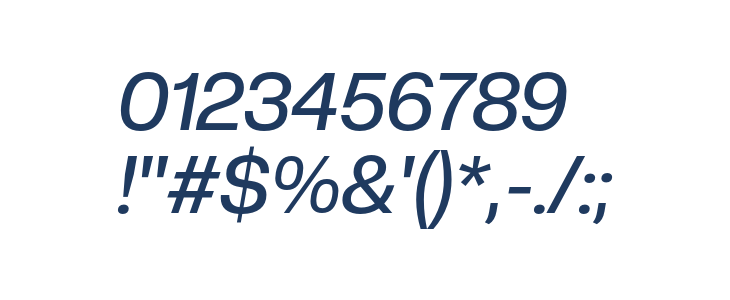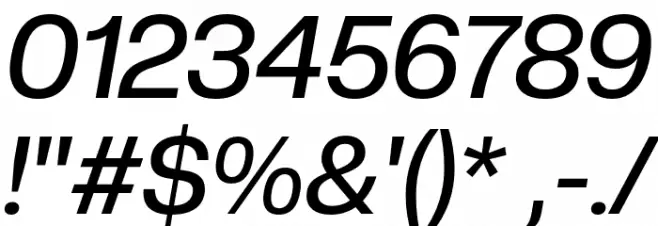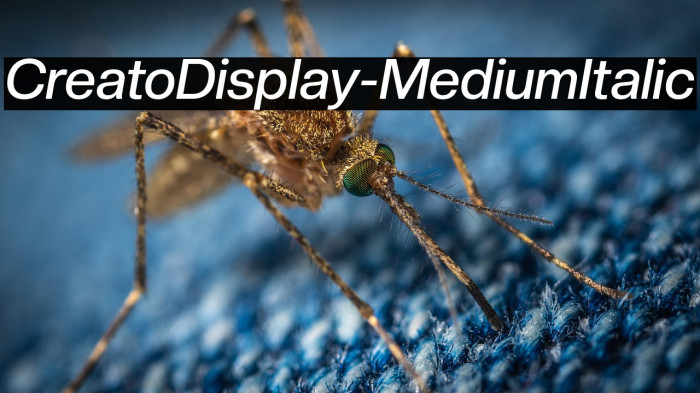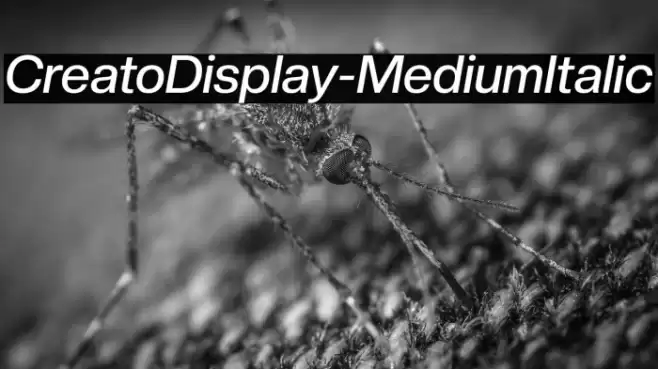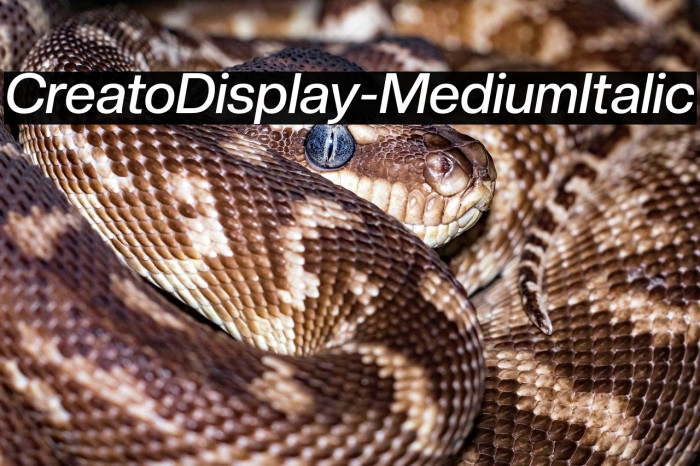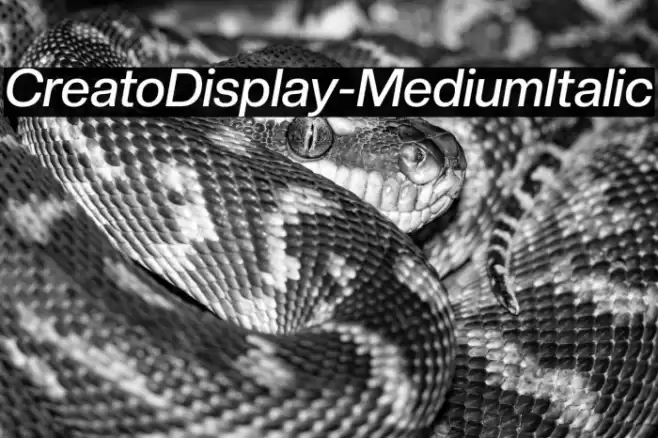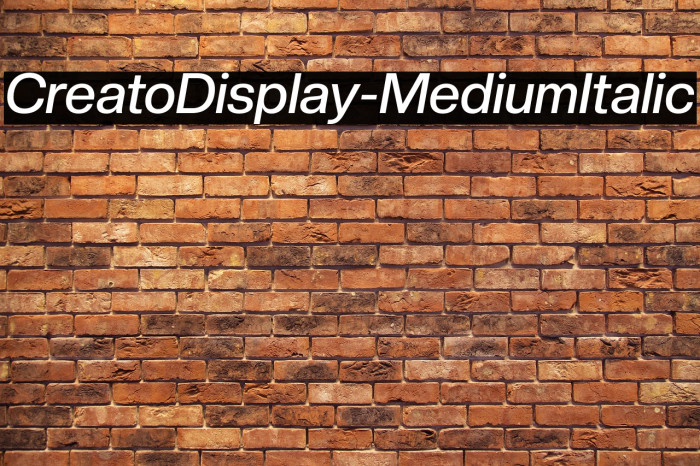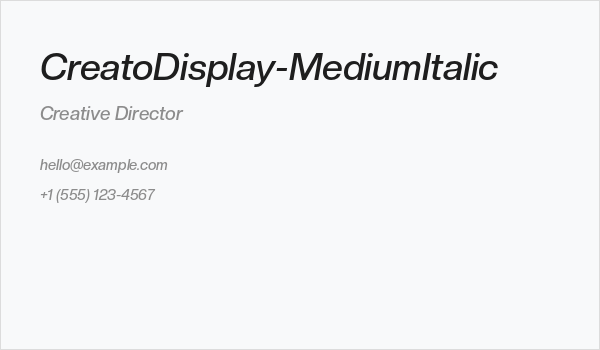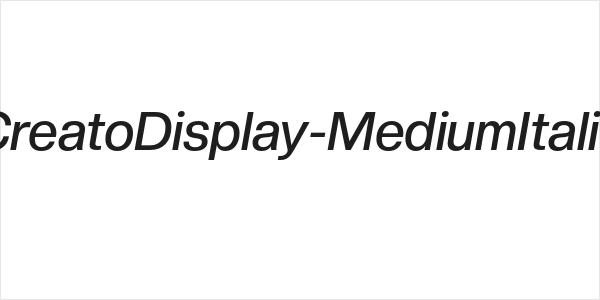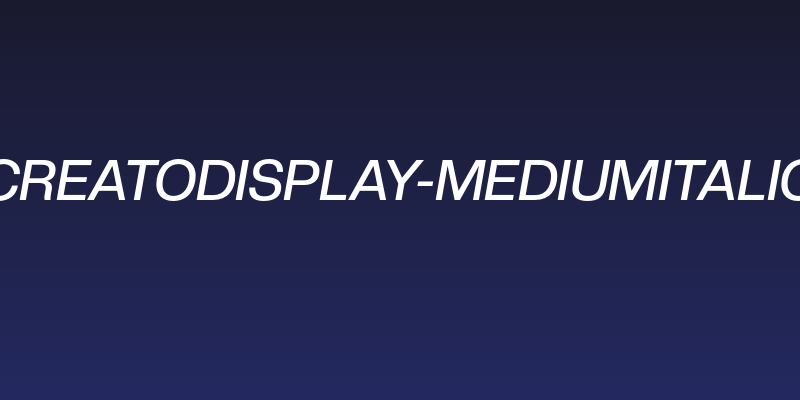
CreatoDisplay-MediumItalic Font
CreatoDisplay-MediumItalic Description
This font features a sleek and modern design with an italicized style that adds a dynamic and forward-leaning appearance. The characters are well-proportioned with a slight slant, giving them a sense of motion and elegance. The strokes are consistent, providing a clean and professional look. The uppercase and lowercase letters maintain a uniform height, while the numerals are clear and easy to read. Special characters are included, enhancing its versatility for various applications. The overall aesthetic is contemporary, making it suitable for a wide range of design projects.
| Use Case | Headlines, Logos, Advertising |
| Proposed Projects | Ideal for branding, advertising, and editorial design where a modern and elegant touch is desired. |